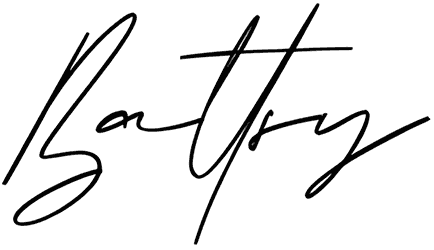
Astopher Font
Astopher is a chic handwritten font that is classy and modern! The characters of this distinctive font are a real beauty, thanks to their slim and natural design. Utilize it for one condensed cursive typography that has a friendly feel as well as a creative display.
It includes an excellent full set of perfect letterforms. You can complete your ideal typography with a clear appearance, and popular places to try it are branding, banners, menus, flyers, and more.